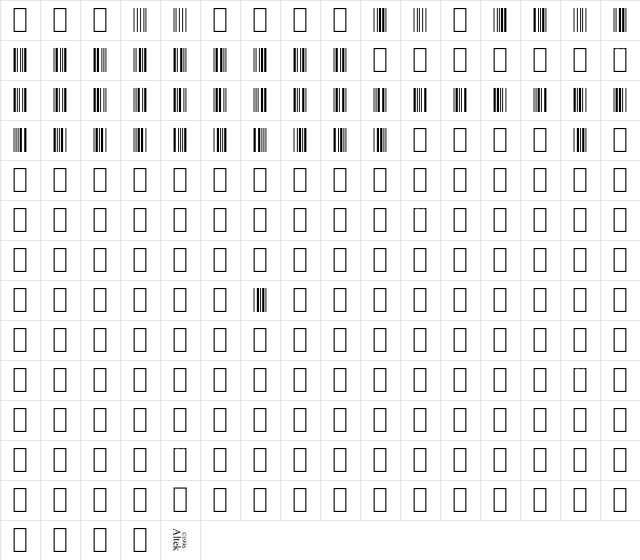
Complete ABC Code 39 regular Regular glyph index. Displaying only characters natively supported by ABC Code 39 regular Regular font.
ABC Code 39 regular uses fixed-width spacing throughout, giving it the structured, systematic character associated with coding environments and technical documentation.